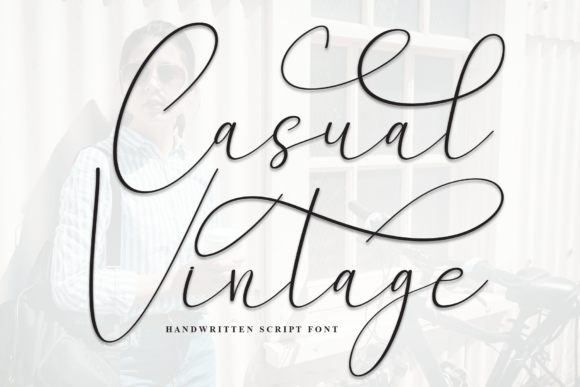
The Perfect Handwritten Touch: A Deep Dive into Casual Vintage Font
I’ll never forget the time I was working on a wedding invitation project, and my client asked for a font that would make their special day feel like a fairytale. I scoured the internet, tried countless fonts, but nothing seemed quite right. That was until I stumbled upon Casual Vintage Font. It was like a breath of fresh air – elegant, stylish, and with a handwritten touch that instantly elevated the design. In this article, I’ll share my love for Casual Vintage Font, its features, and how to make the most of it in your designs.
- ✨ Elegant and stylish script font perfect for adding a touch of sophistication to any design
- ✅ Highly versatile and works beautifully on various design materials, from wedding invitations to business cards
- 💫 Features OpenType features, glyphs, and stylistic alternates for endless design possibilities
- 👍 Easy to read and understand, even in smaller font sizes
While Casual Vintage Font is an amazing font, there are a few things to keep in mind:
- ⚠️ Some letters may require manual kerning for optimal spacing
- 🤔 May not be the best choice for body text due to its script nature
While the true story behind Casual Vintage Font remains a mystery, it’s easy to imagine that the designer was inspired by the elegance of vintage typography. Perhaps they spent hours pouring over antique books and lettering, seeking to create a font that would evoke a sense of sophistication and refinement. Whatever the inspiration, the end result is a font that is both timeless and versatile.
Q: What is Casual Vintage Font best used for?
A: Casual Vintage Font is perfect for designs that require a handwritten touch, such as wedding invitations, thank you cards, quotes, greeting cards, logos, and business cards.
Q: Is Casual Vintage Font easy to read?
A: Yes, Casual Vintage Font is designed to be easy to read and understand, even in smaller font sizes.